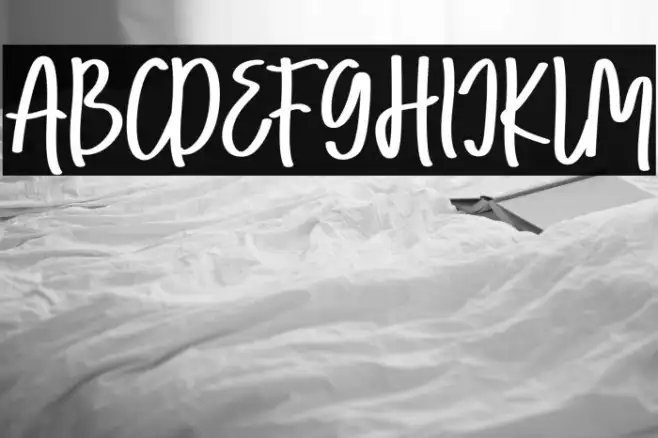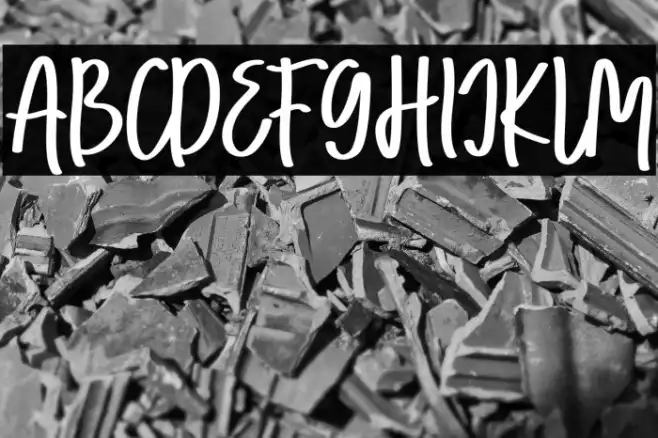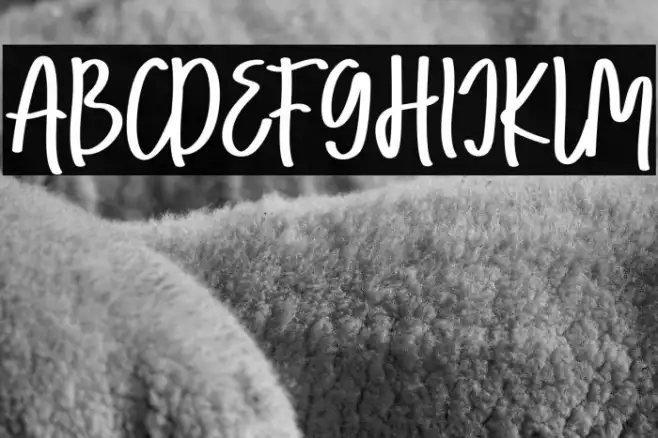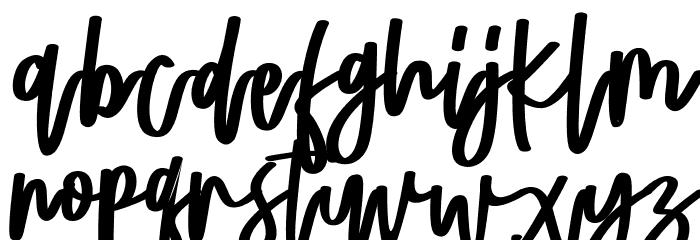
MaLorenaFREE Font
MaLorenaFREE Description
This font features a lively and dynamic handwritten style, characterized by its fluid and continuous strokes. The letters are bold and expressive, with a playful yet elegant appearance. The uppercase and lowercase letters maintain a consistent flow, creating a sense of movement and energy. The font's design is reminiscent of casual handwriting, making it approachable and friendly. The characters are well-spaced, ensuring readability while maintaining the font's unique personality. This style is perfect for projects that require a personal touch, such as invitations, greeting cards, or branding materials that aim to convey warmth and creativity.